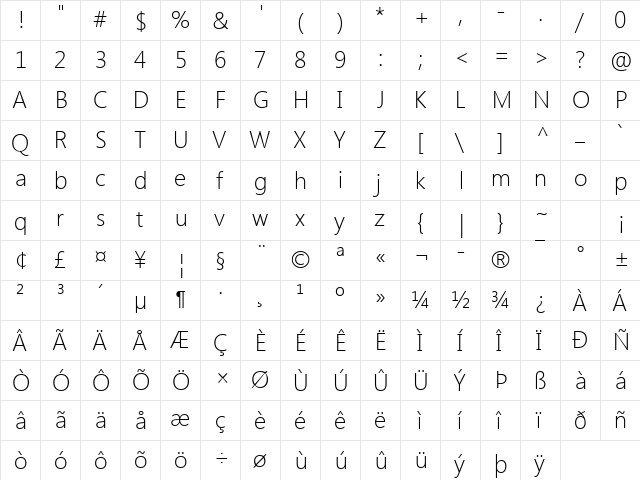
Segoe UI Light Regular
Design Context for Segoe UI Light Typeface
Segoe UI Light offers clean, dependable letterforms without strong stylistic allegiance, making it a practical choice for designers who need flexibility. Its slender proportions lend an understated elegance to any composition.